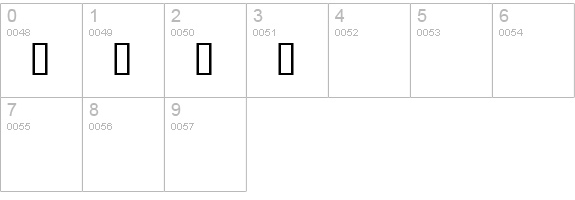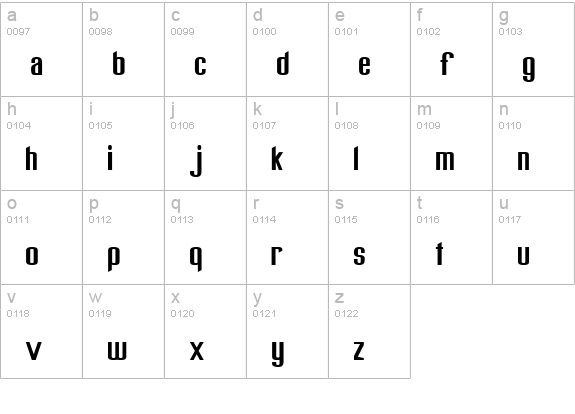
Freak out, Go bananas Normal Font Details
Freak out, Go bananas Normal is the standard, neutral variant in the Freak typeface family \xE2\x80\x94 well suited to general body text, paragraphs, and standard typographic work.
"Freak out, Go bananas" is a fun and playful font that will add a touch of whimsy to your designs. With its quirky and energetic style, this font is perfect for projects that require a bit of creativity and boldness. It is freely available to download at FontsMarket.com, making it easily accessible for all your design needs. Let your imagination run wild with "Freak out, Go bananas" and bring a burst of personality to your next project.